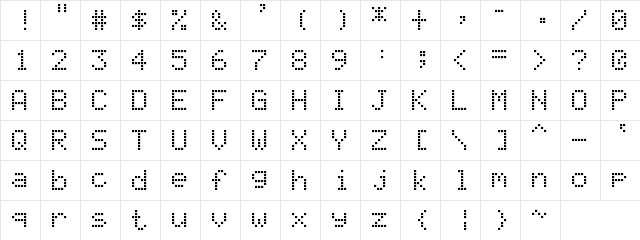
LCD Display Grid Regular
Design Context for LCD Display Grid Typeface
LCD Display Grid is built around its visual character rather than neutral utility — its distinctive forms are designed to make an impression at display sizes.
Font Pairing: Pair with a clean neutral sans-serif for body copy to let LCD Display Grid's character lead without overwhelming the composition.
Pro Tip: Use LCD Display Grid exclusively at display sizes — it was designed to be seen, not read at length. Let a neutral companion handle body copy.